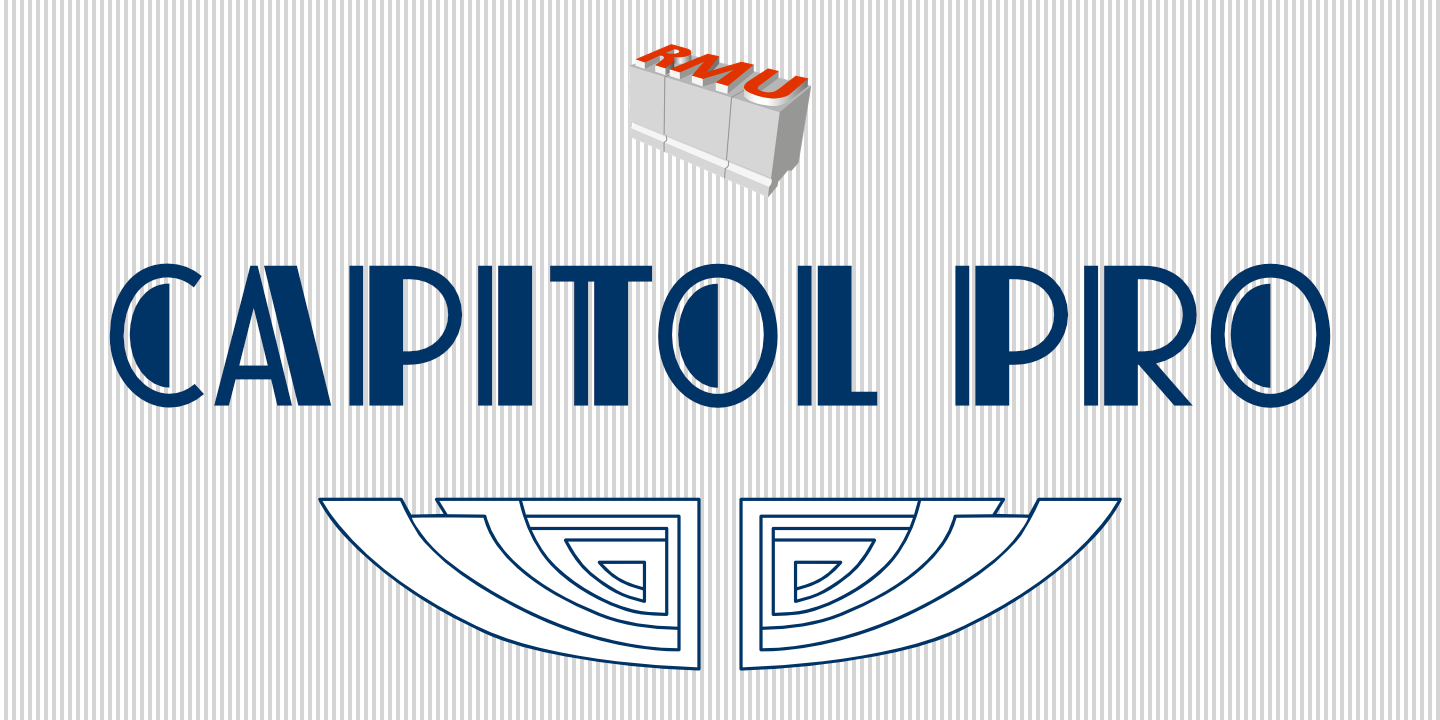
Capitol Pro Font is perfect for prestigious government communications, distinguished political campaigns, authoritative news publications, formal institutional branding, executive corporate identities, professional law firm signage, serious academic publications, and commanding leadership presentations. This distinguished typeface excels in official environments, governmental applications, and any project requiring institutional authority that communicates political gravitas and professional credibility through commanding administrative elegance.
What makes Capitol Pro Font exciting is its exceptional ability to embody governmental authority and institutional prestige through powerfully crafted letterforms that convey official credibility and administrative excellence with unwavering dignity. The font features authoritatively designed characters with governmental curves and institutional proportions that evoke feelings of civic trust and political reliability, making it ideal for brands seeking to establish official connections and communicate through authoritative governmental visual language. Its institutional presence ensures immediate recognition of official authenticity and governmental sophistication.
Capitol Pro Font family includes multiple weights and styles: Regular, Bold, Light, Medium, Italic variations, and official alternates with governmental embellishments and institutional decorative elements. Each family member maintains the distinctive authoritative character while offering comprehensive design options for official campaigns, from formal governmental text to commanding institutional headlines that establish political authority and official credibility through distinguished administrative typography.
Whether you're designing governmental brand identities or creating official institutional campaigns, Capitol Pro Font Free Download provides the perfect typography solution for authoritative branding needs. This font transforms ordinary text into powerful official statements that communicate governmental authority and institutional excellence. Government agencies and professional institutions choose this typeface for its ability to convey official dignity through authoritatively crafted letterforms that govern through designs with institutional grace and celebrate the enduring strength of democratic administration.